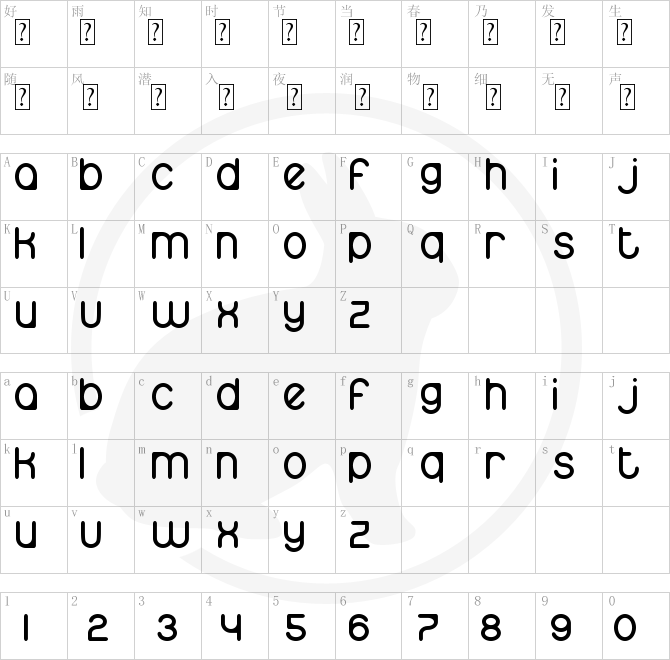
- Font Name:namo
namo.ttf is a very beautiful artistic font, namo.ttf is widely used in the design and printing of various books and pictures,namo.ttf has a strong visual impact,namo.ttf is a commonly used font in newspapers, magazines and books, and is used in posters, e-commerce Poster design, store design, logo design, font design and other fields.namo.